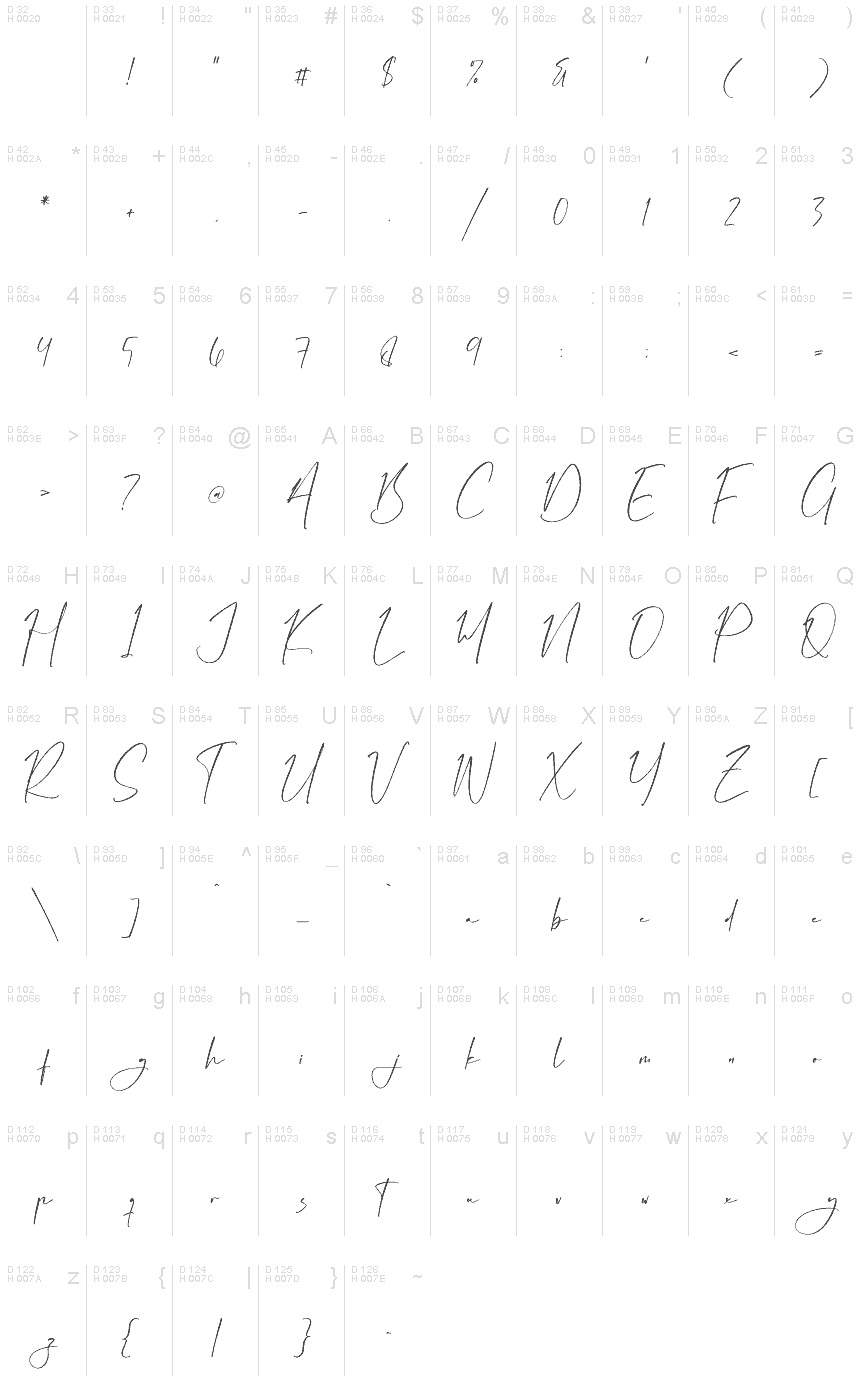
Transilvant Geraldis
Transilvant Geraldis font is a light handwritten font by Storytype Studio. The soft curves and relaxed strokes lend it a signature style that feels both casual and elegant. A personal touch with a modern aesthetic can be achieved by those who use it, ensuring their work has an expressive flair that communicates uniqueness and quality.
This free handwritten font has potential in numerous design areas including packaging designs, magazines covers, social media posts, logotypes, stationery items, custom invitations card designs, or apparel items branding purposes via print ads/web banners.